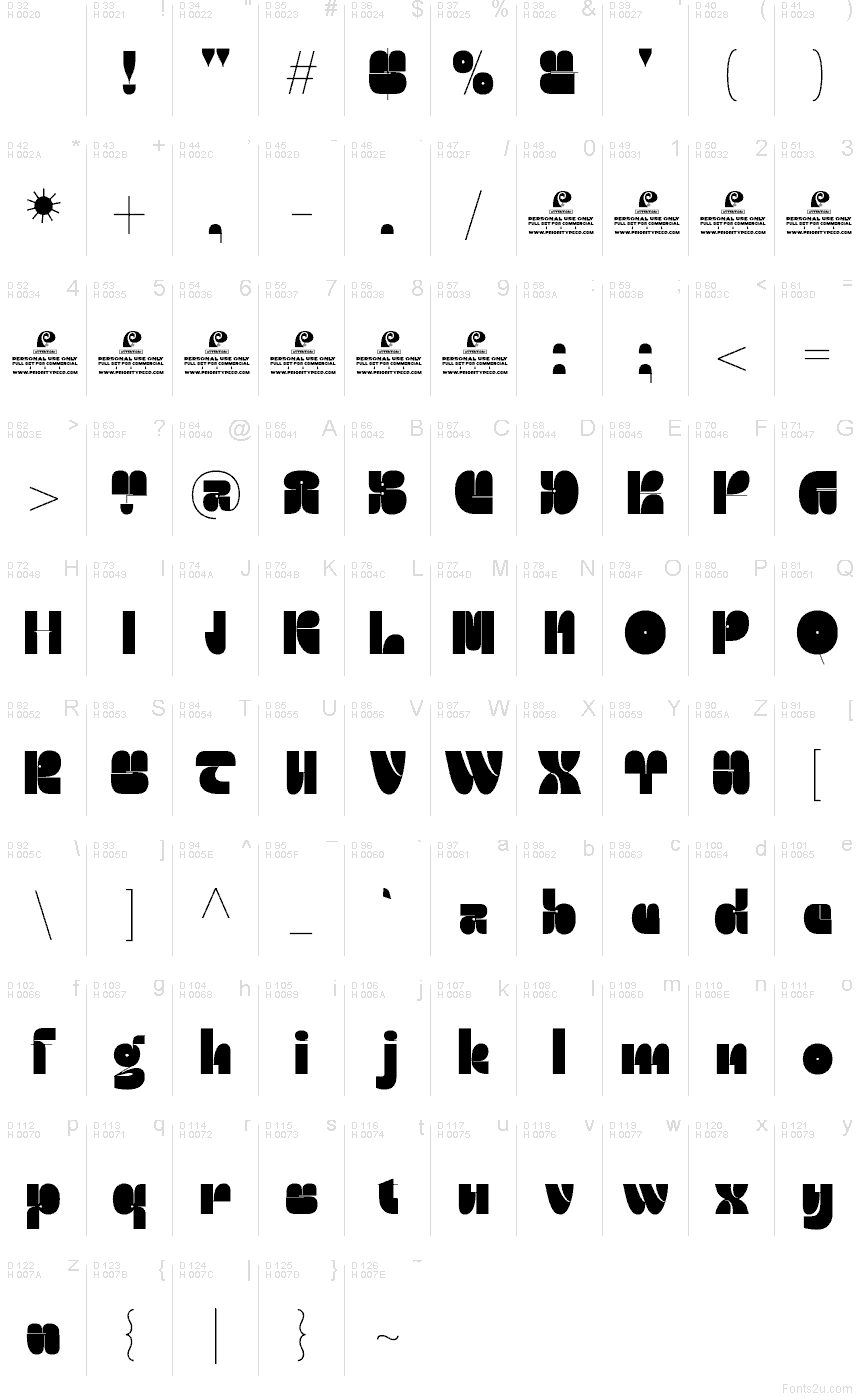
Super Parody DEMO Regular
Super Parody font by Prioritype Co is a free groovy display typeface with letterforms that lock together like bold, glossy puzzle pieces. Its ultra-thick shapes, rounded corners, and tight rhythm create a chunky, almost sculpted texture that feels straight off a ’70s poster but with a clean, digital twist. The letters hug each other closely, forming dense, inky word blocks that instantly grab attention and radiate playful energy.
Using Super Parody, big, loud projects truly come alive—think party posters, album covers, event branding, social media graphics, funky logos, and merch. This free font thrives at large sizes where its quirky curves and compact spacing can really shine. Pair it with a simple, light sans serif for captions or body copy to balance its visual weight and keep your layouts readable.